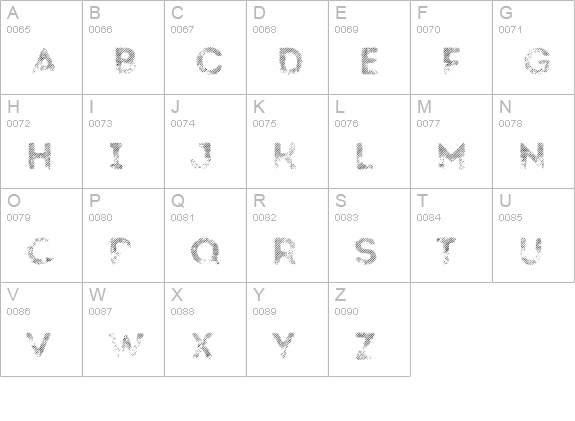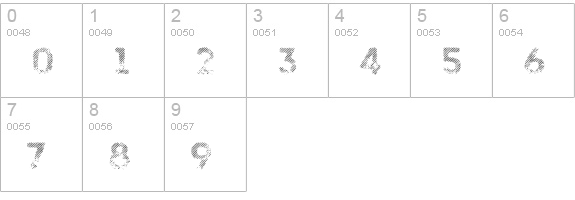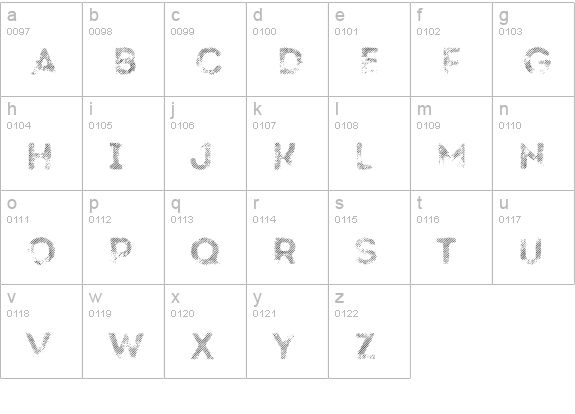
The Intro Rust L Fill font is a captivating and versatile typeface that seamlessly combines vintage charm with a modern edge. Its intricate design features bold, expressive lines that add a dynamic element to any project. This font is perfect for creating eye-catching headlines, posters, and logos that demand attention. Best of all, the Intro Rust L Fill font is available for free download at FontsMarket.com. Now you can elevate your designs with this unique and impactful typeface without breaking the bank. Don't miss out on the opportunity to enhance your creative projects with this stunning font that is sure to make a lasting impression. Download the Intro Rust L Fill font today and unleash your creativity!